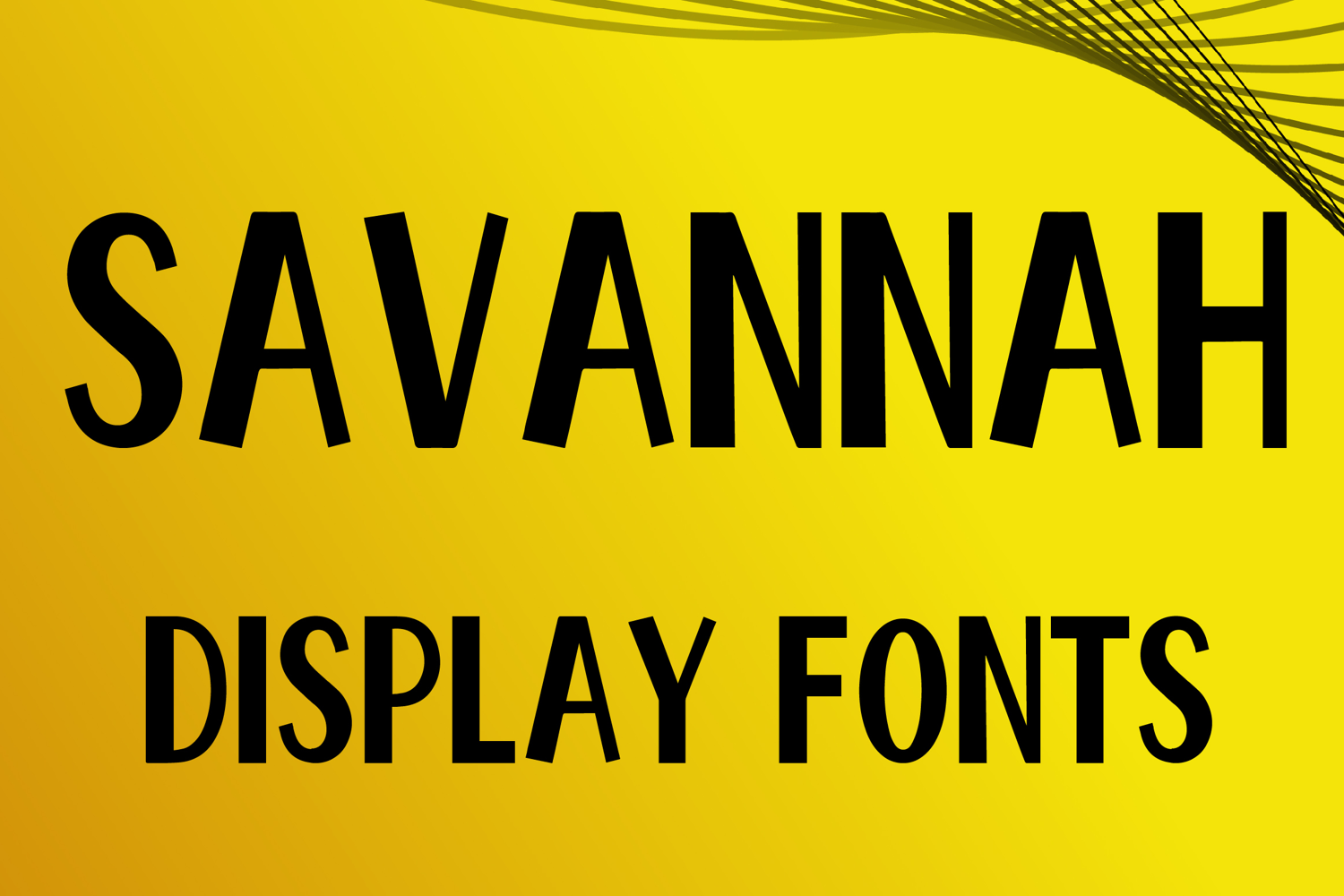
SAVANNAH
SAVANNAH is a bold display font with a tall geometric style and clean modern character. Its uppercase letterforms feature strong vertical strokes, slightly tapered shapes, and subtle handcrafted irregularity that create a sleek, stylish, and eye-catching look. Designed with uppercase letters A–Z and numbers 0–9, SAVANNAH is perfect for branding, posters, packaging, logos, headlines, and social media graphics that need a modern and memorable statement.